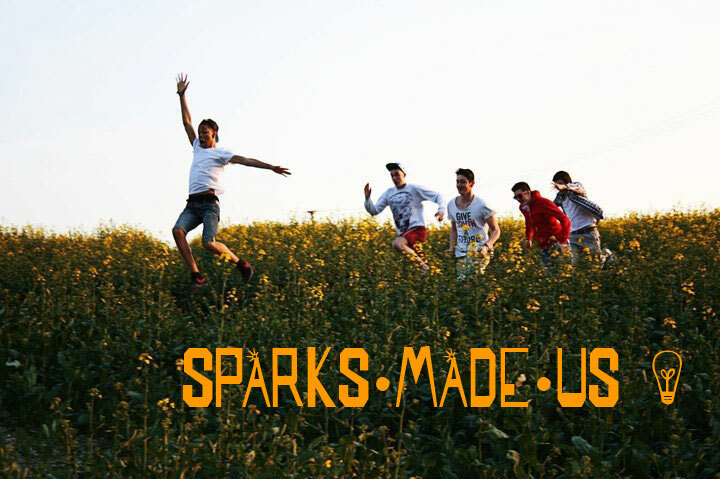
SPARKS MADE US by SpideRaY is a free outlined techno display font with tall, hard-edged capitals and an industrial silhouette. Squared curves and clipped corners give the letters a machine-cut look. The mix of broad and narrow forms keeps the lettering tense and irregular.
A gaming studio or electronic music label could use it for title cards, posters, and merchandise. Its clipped geometry also fits science-fiction entertainment and motorsport graphics with an engineered industrial theme.
Sparks Made Us is a five-piece indie band.